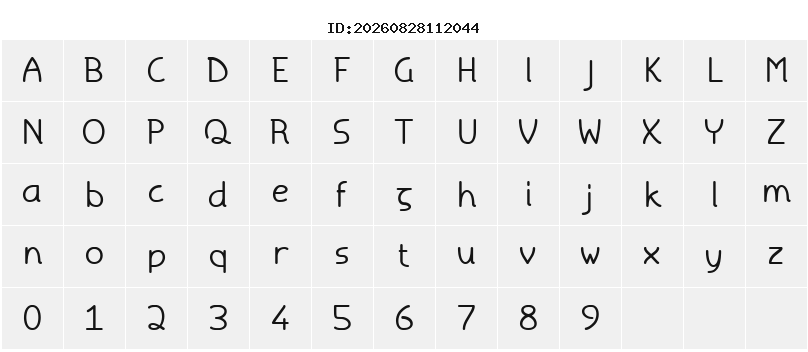
Torid Preview
• Font Name: Torid
• Full Font Name: Torid
• Designer: Ruben Holthuijsen
• Manufacturer: Ruben Holthuijsen
About Torid.ttf
Torid.ttf is a modern, elegant sans-serif font designed for ultimate readability and visual harmony. Perfect for branding, headlines, web design, and print materials.